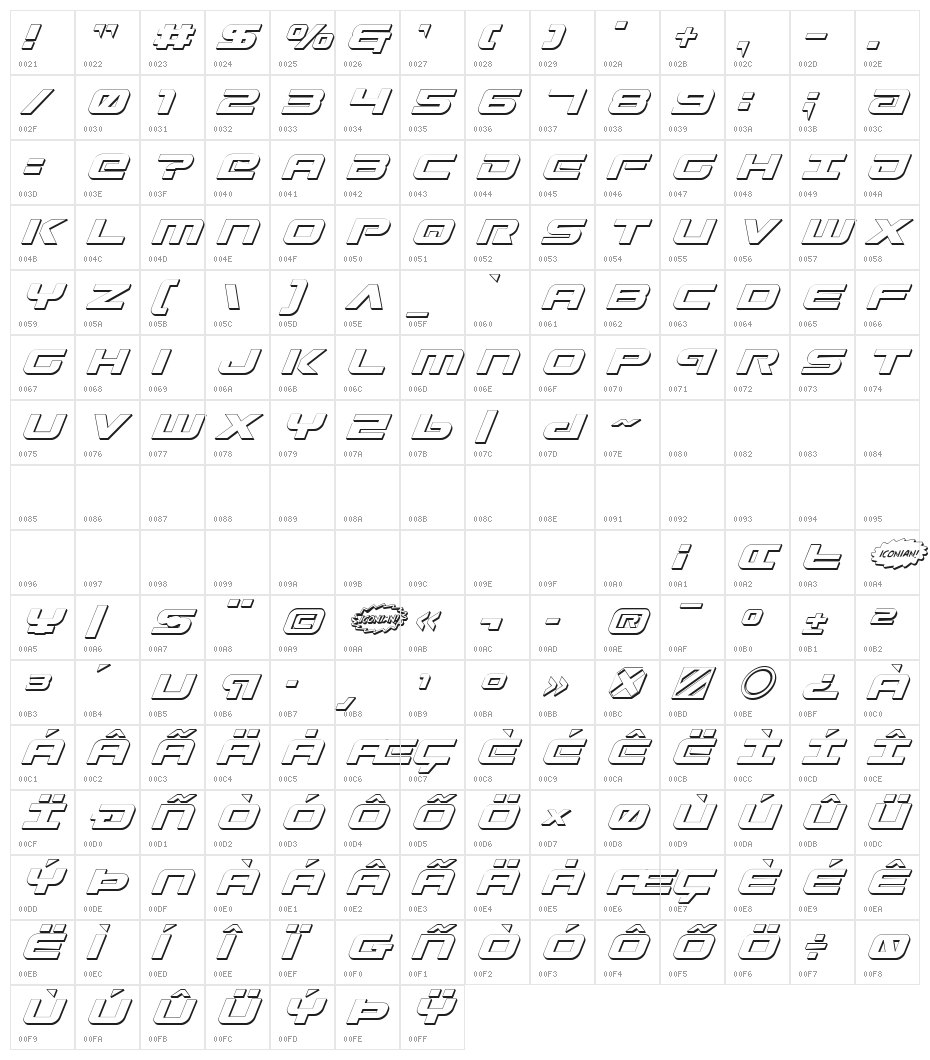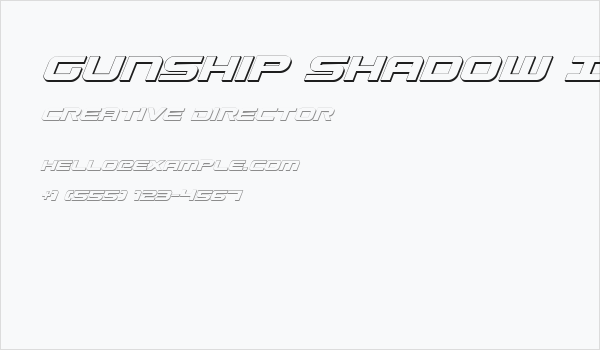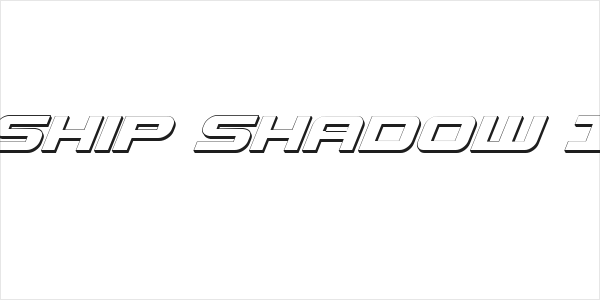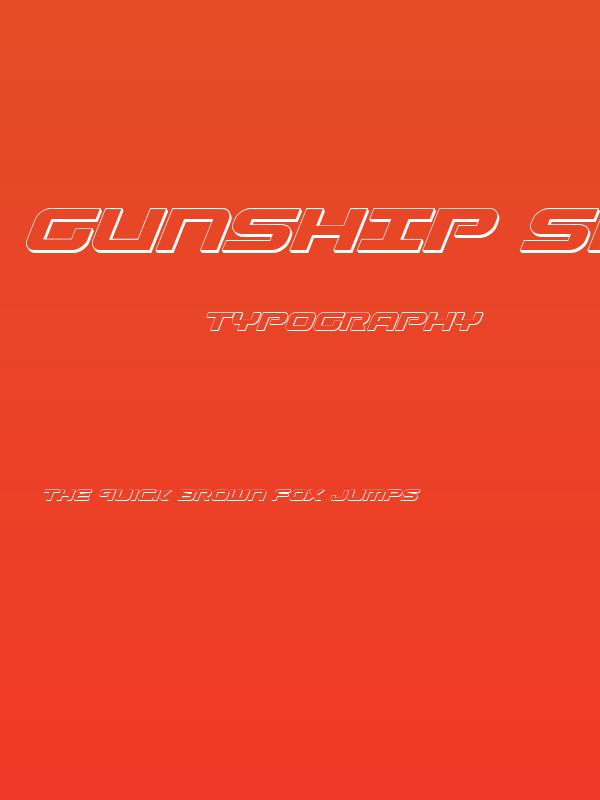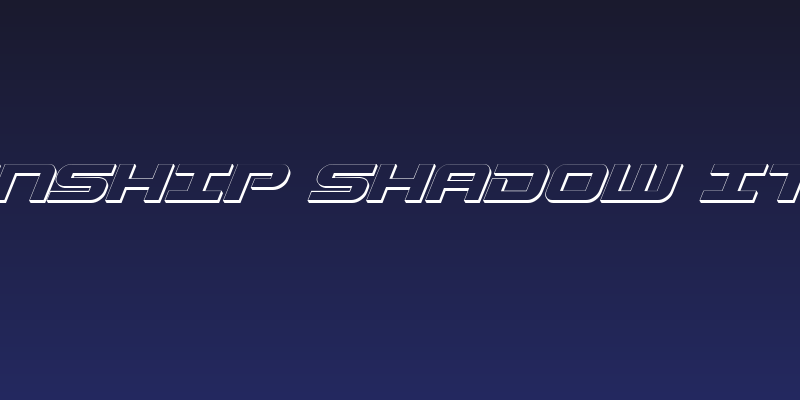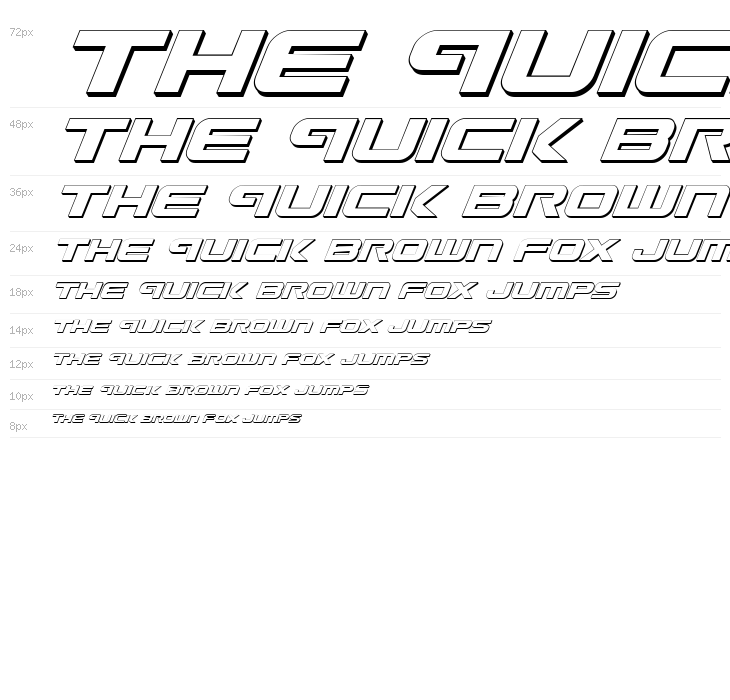
Gunship Shadow Ital Font
Gunship Shadow Ital Description
This font exhibits a futuristic and dynamic style, characterized by its bold, angular letterforms and italicized slant. The design features a distinct outline that gives each character a shadow effect, enhancing its three-dimensional appearance. The uppercase and lowercase letters maintain a consistent geometric structure, with sharp edges and a streamlined look. The numerals and special characters are crafted with the same attention to detail, ensuring uniformity across the entire set. This font's unique aesthetic makes it ideal for projects that require a modern and edgy touch.
| Proposed Projects | Ideal for sci-fi themed posters, video game titles, tech branding, and futuristic logos. |